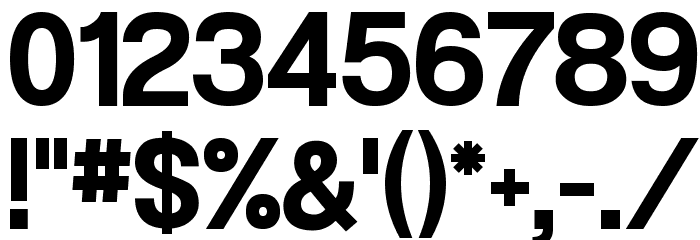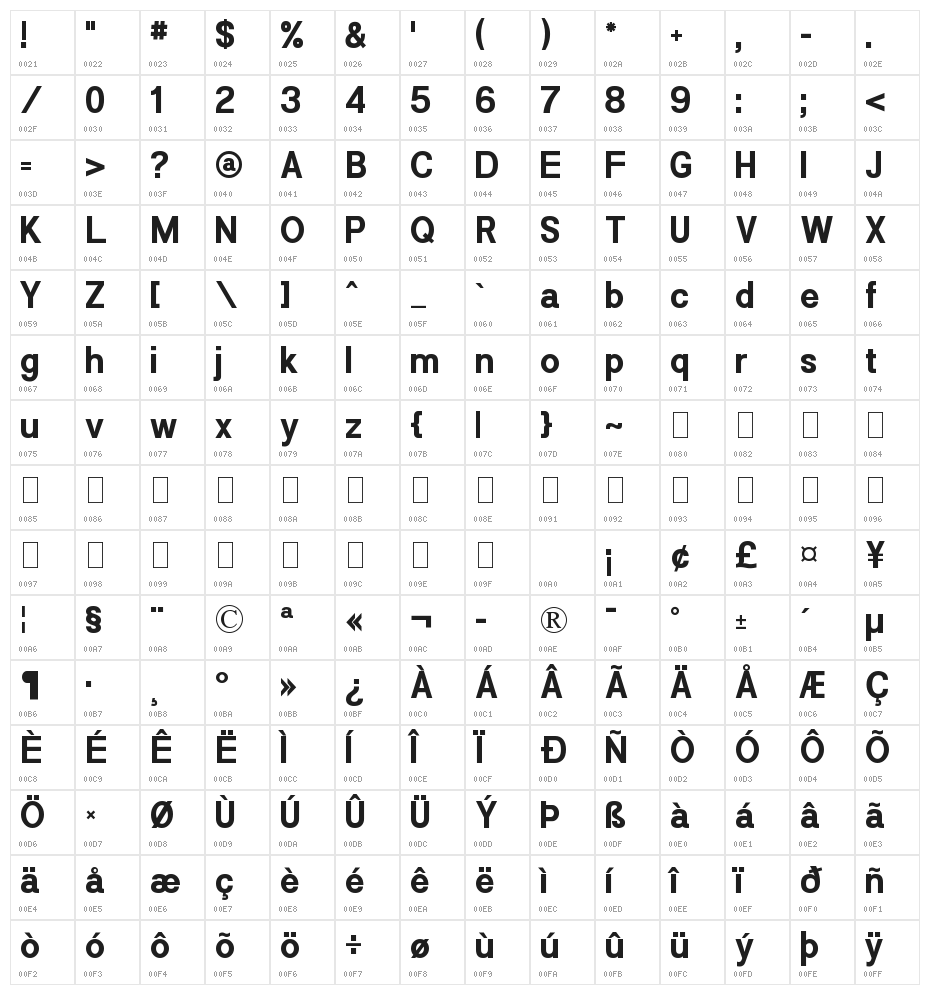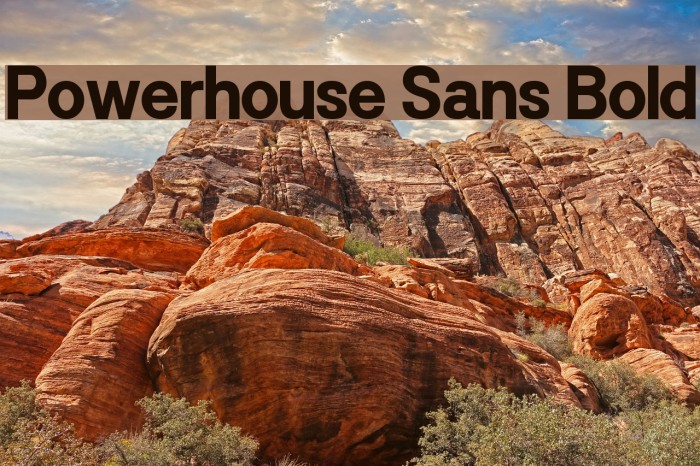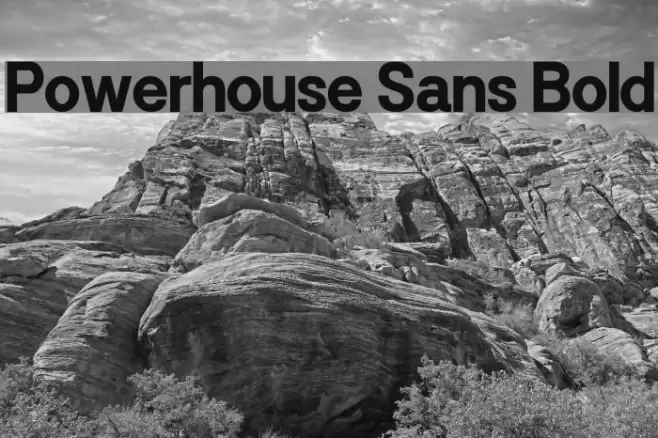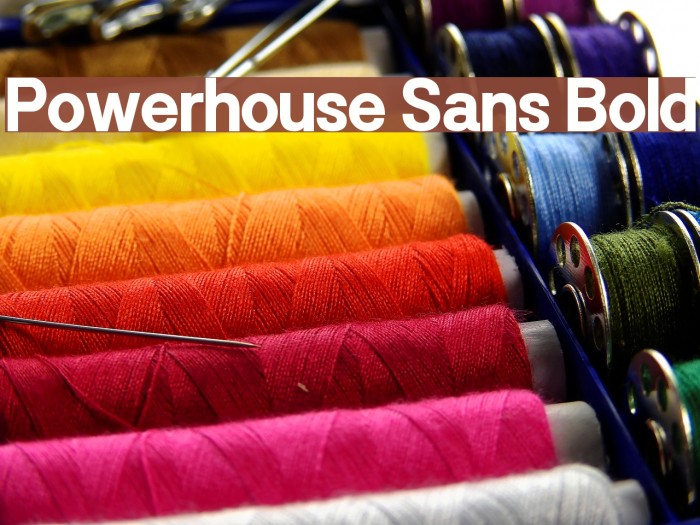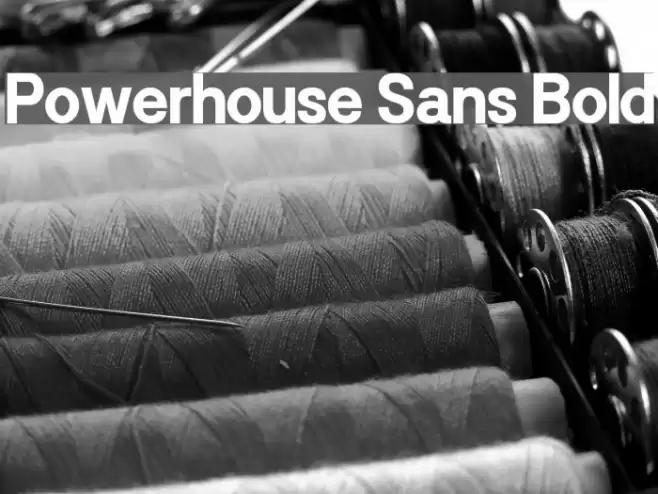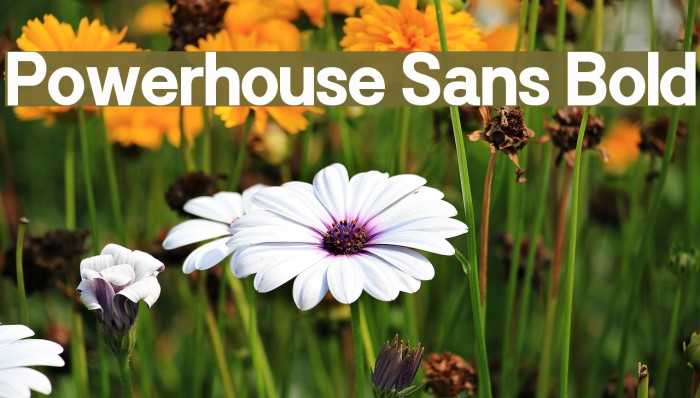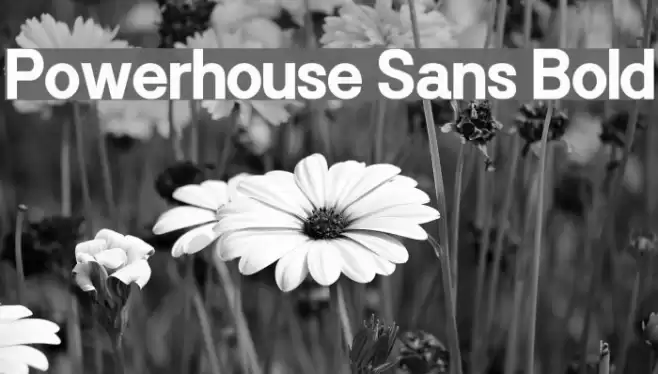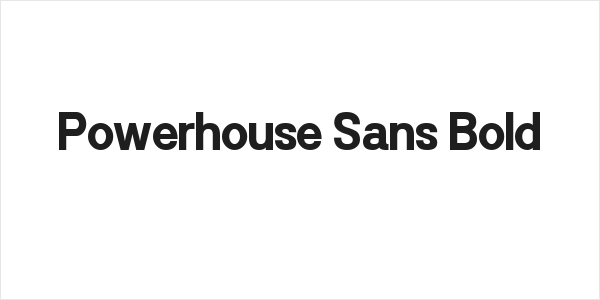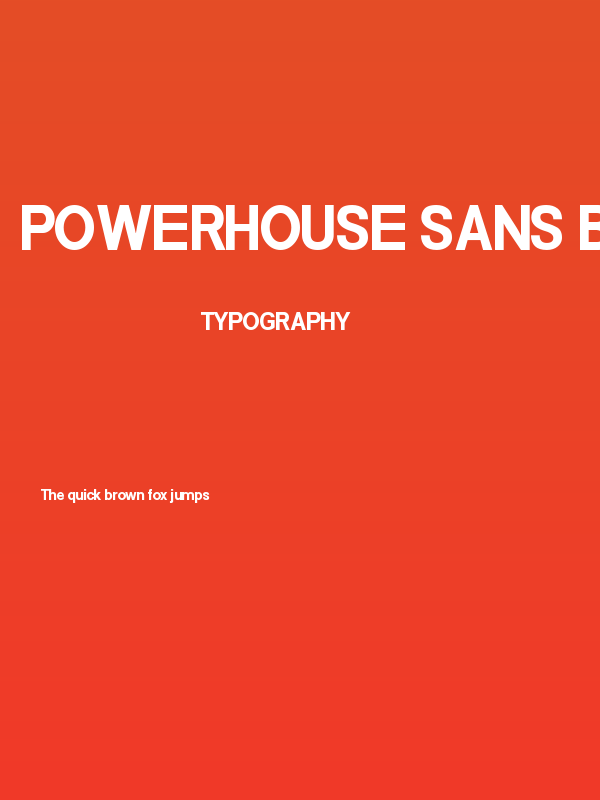
Powerhouse Sans Bold Font
Powerhouse Sans Bold Description
This font is a bold, sans-serif typeface characterized by its strong, clean lines and modern appearance. The uppercase letters are uniform in height, providing a sense of stability and balance. The lowercase letters maintain a consistent x-height, enhancing readability. The numerals are clear and distinct, making them suitable for various applications. Special characters are well-defined, ensuring versatility in design projects. The overall look is professional and contemporary, ideal for making a bold statement.
Proposed ProjectsIdeal for branding, headlines, posters, and digital media where a strong, modern impact is desired.